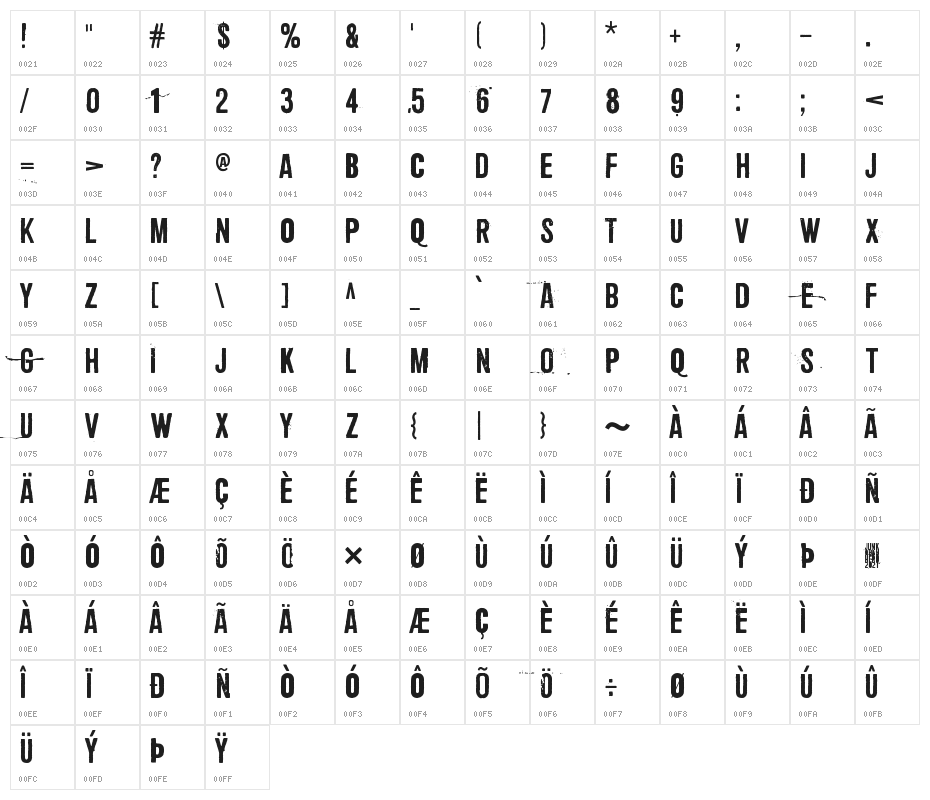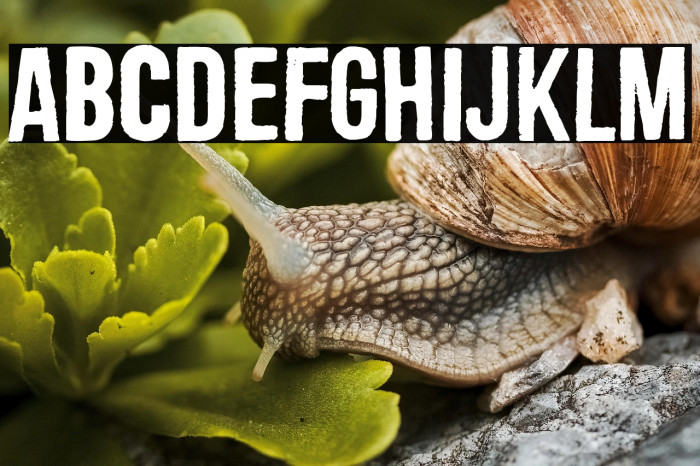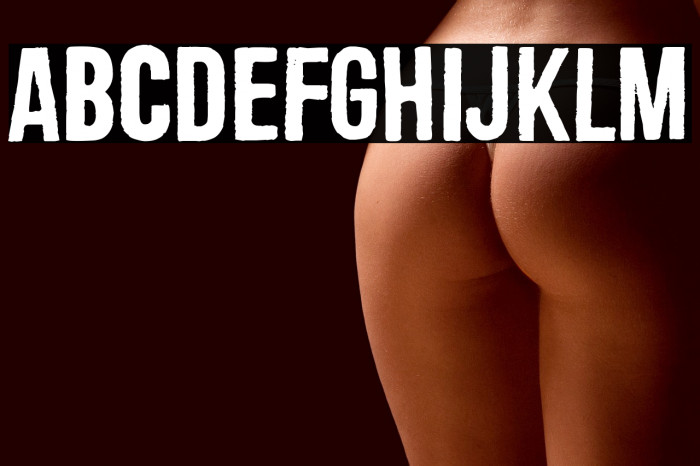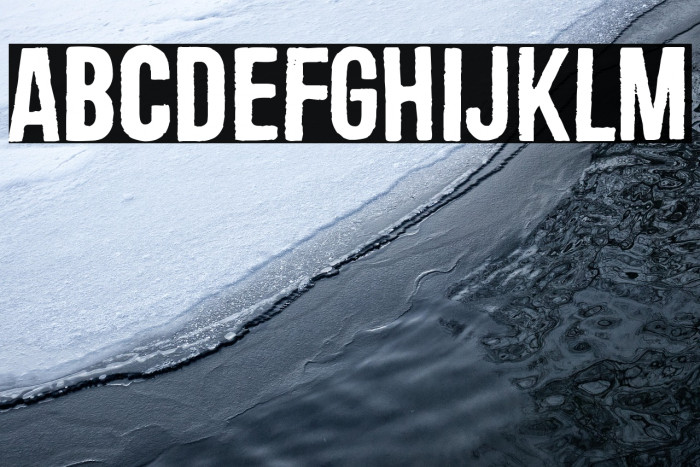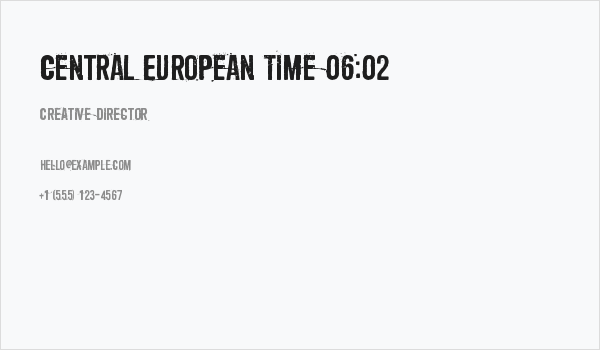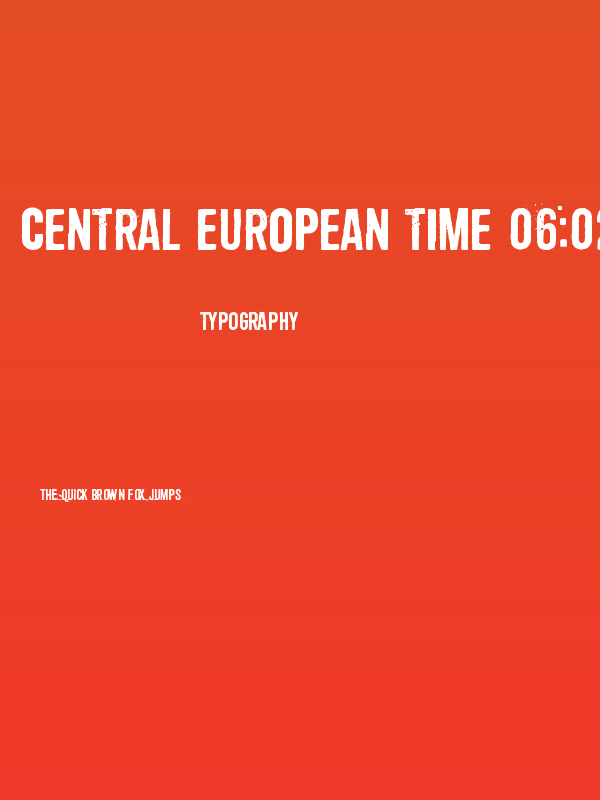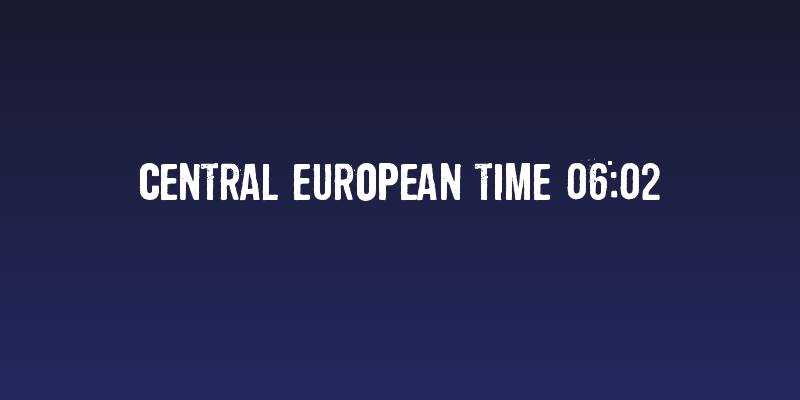
Central European Time 06:02 Font
Central European Time 06:02 Description
This font features a bold, distressed style with a rugged, textured appearance that gives it a vintage, industrial feel. The characters are all uppercase, with a consistent height and width, creating a uniform look. The edges of the letters are rough and uneven, adding to the distressed aesthetic. This style is reminiscent of old printing techniques where ink would wear off over time, giving each letter a unique, weathered look. The numbers and special characters follow the same design, ensuring a cohesive appearance across all elements. The font's boldness makes it stand out, while the distressed texture adds character and depth.